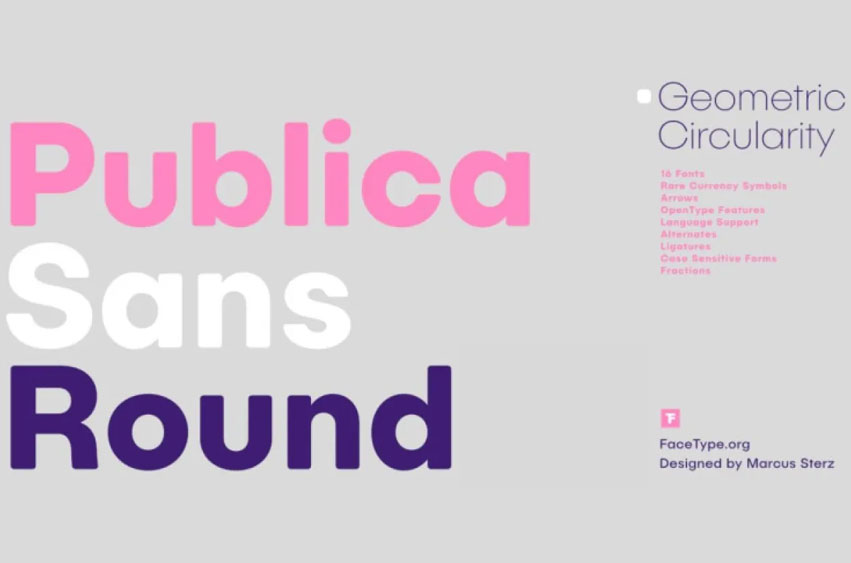
Publica Sans Round Font
Publica Sans Round Font Family is the rounded version of Publica Sans. Packed with OpenType features that will help you craft great typography, including alternates, arrows and rare currency symbols; case-sensitive forms; different sets of figures and discretionary ligatures.
Publica Sans Rounded has two sisters that also belong to its family tree.